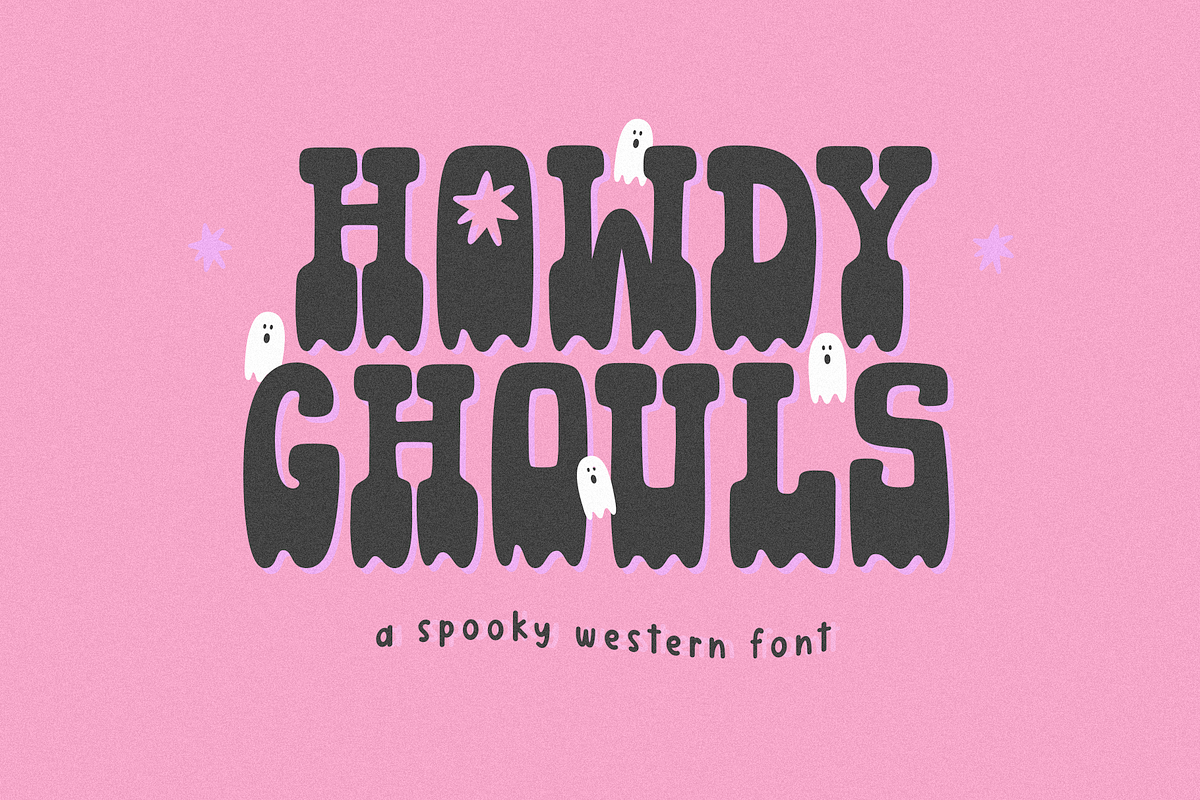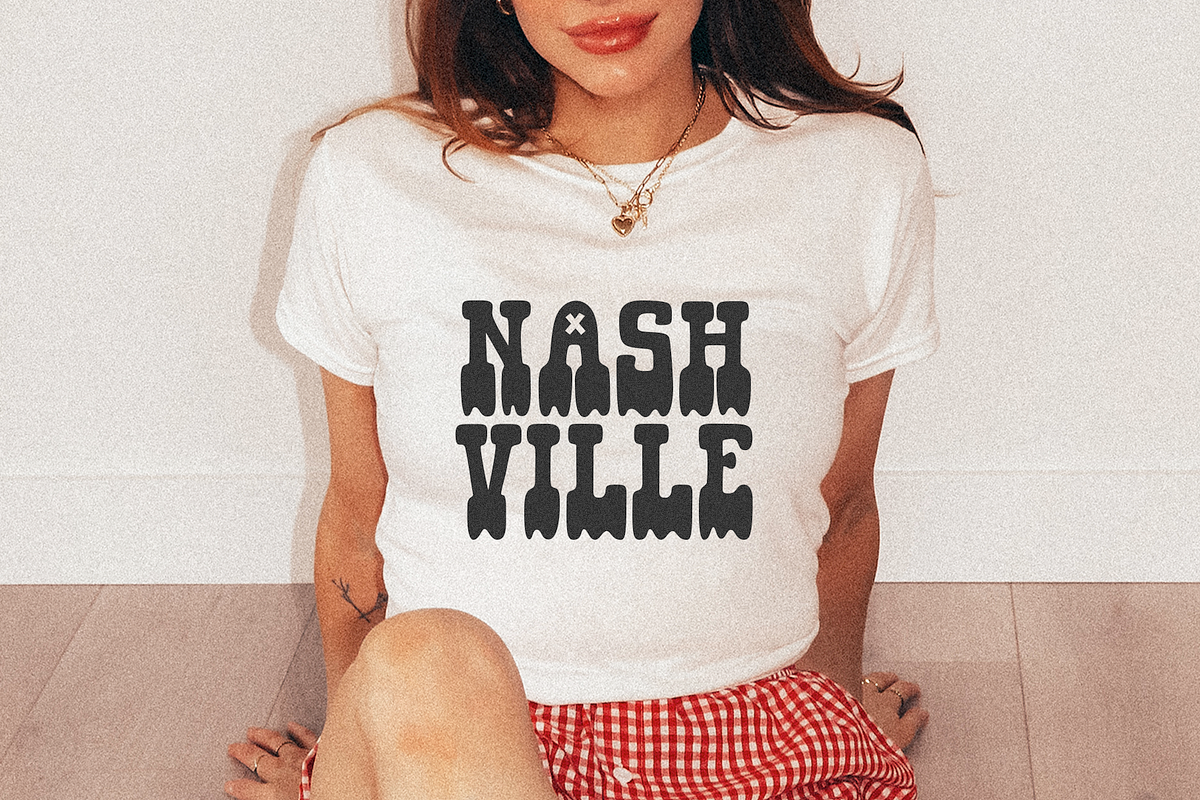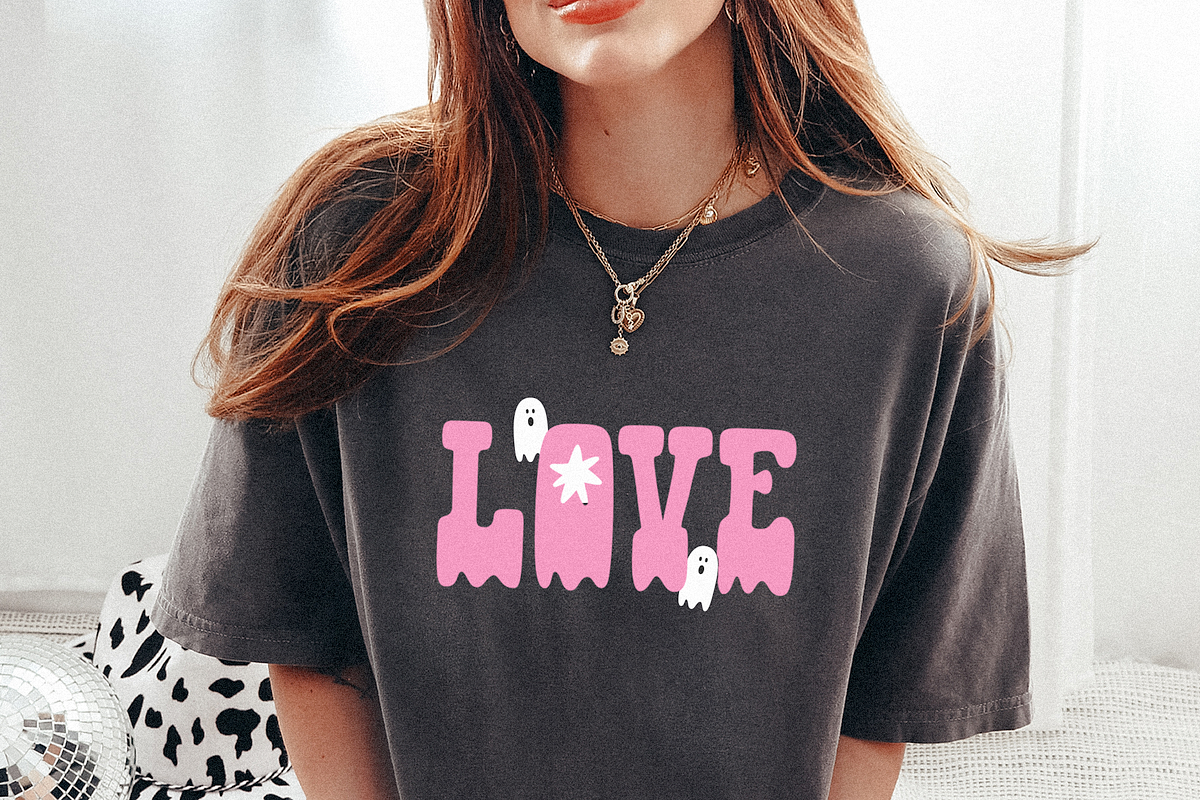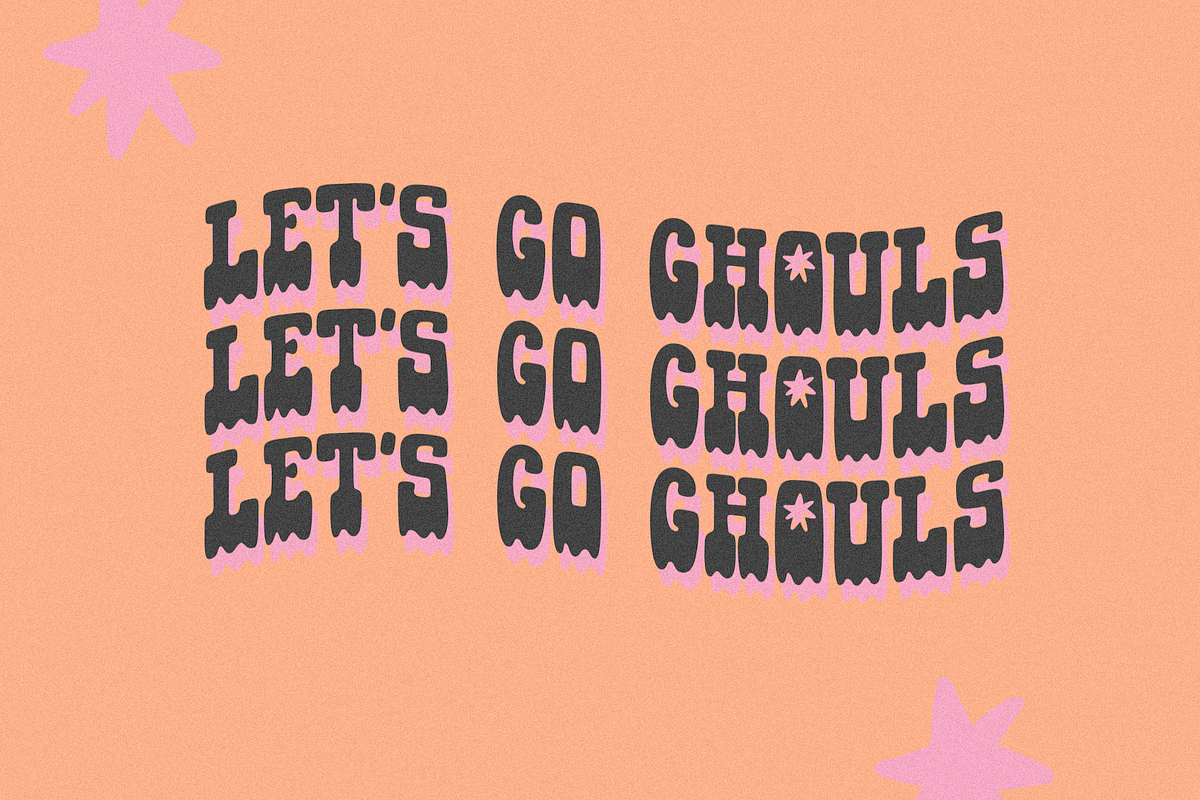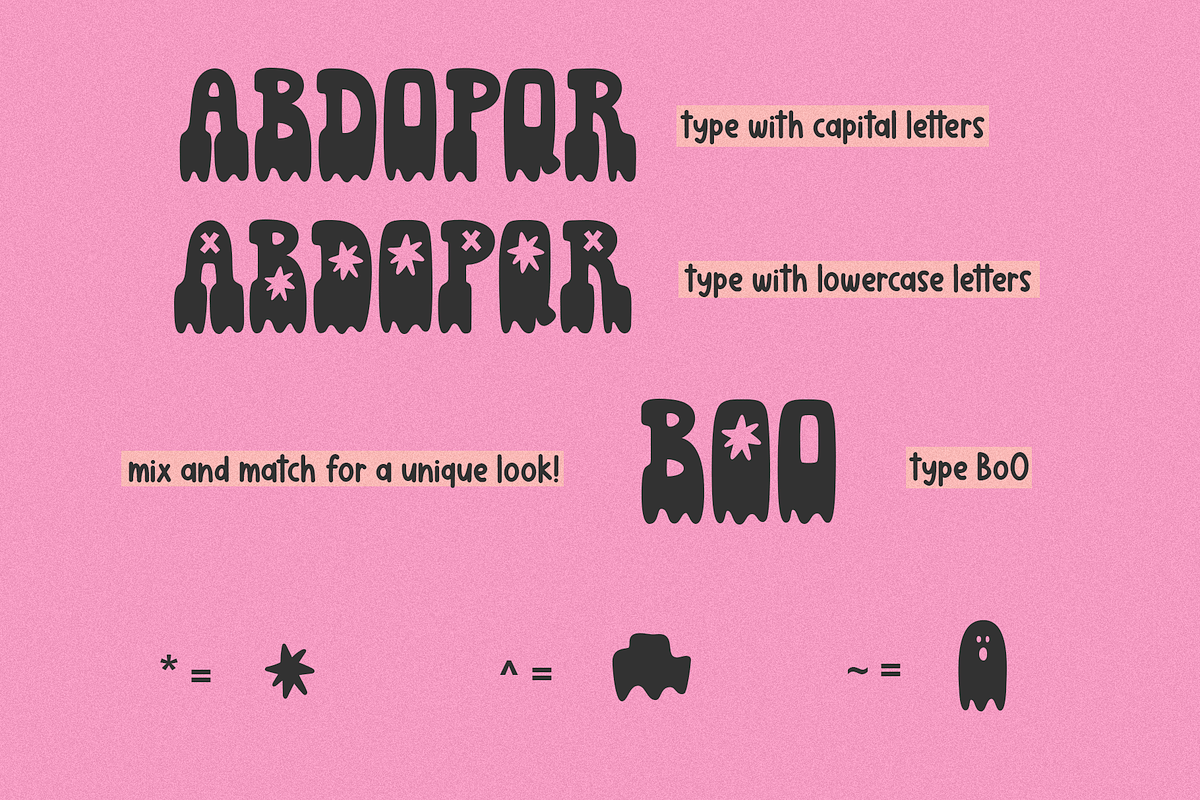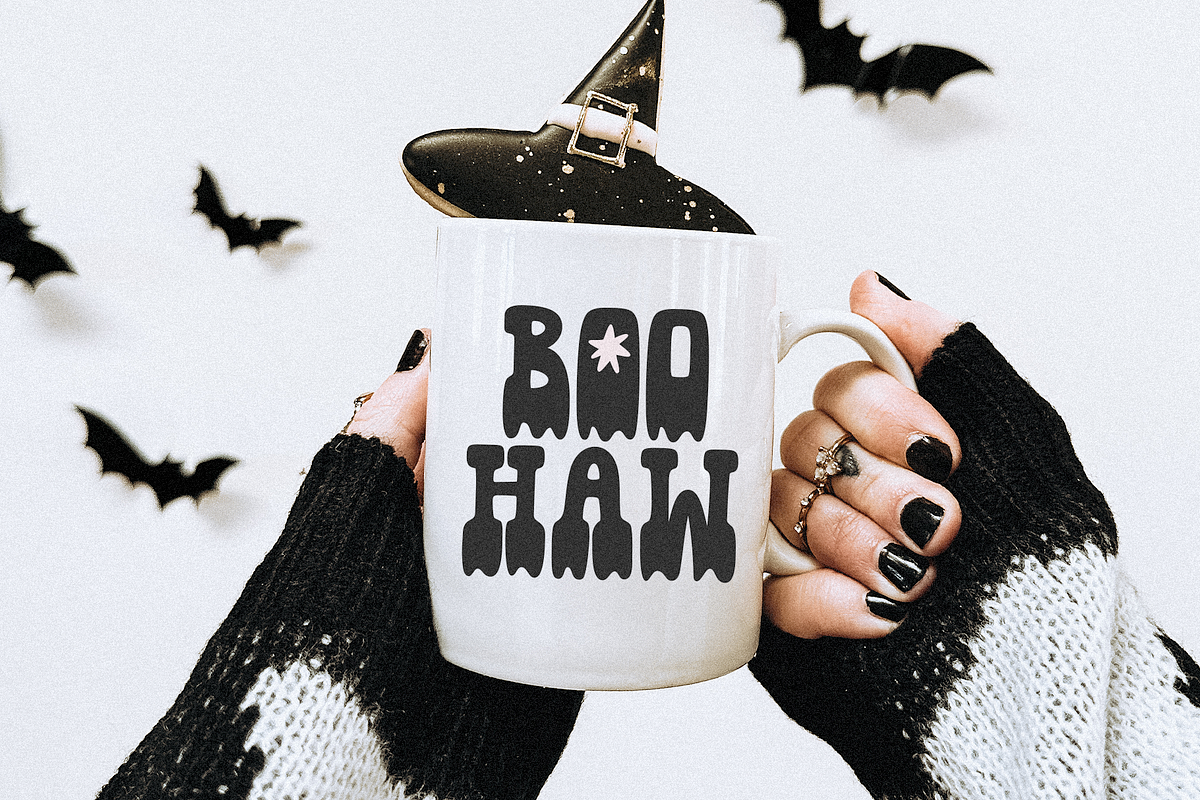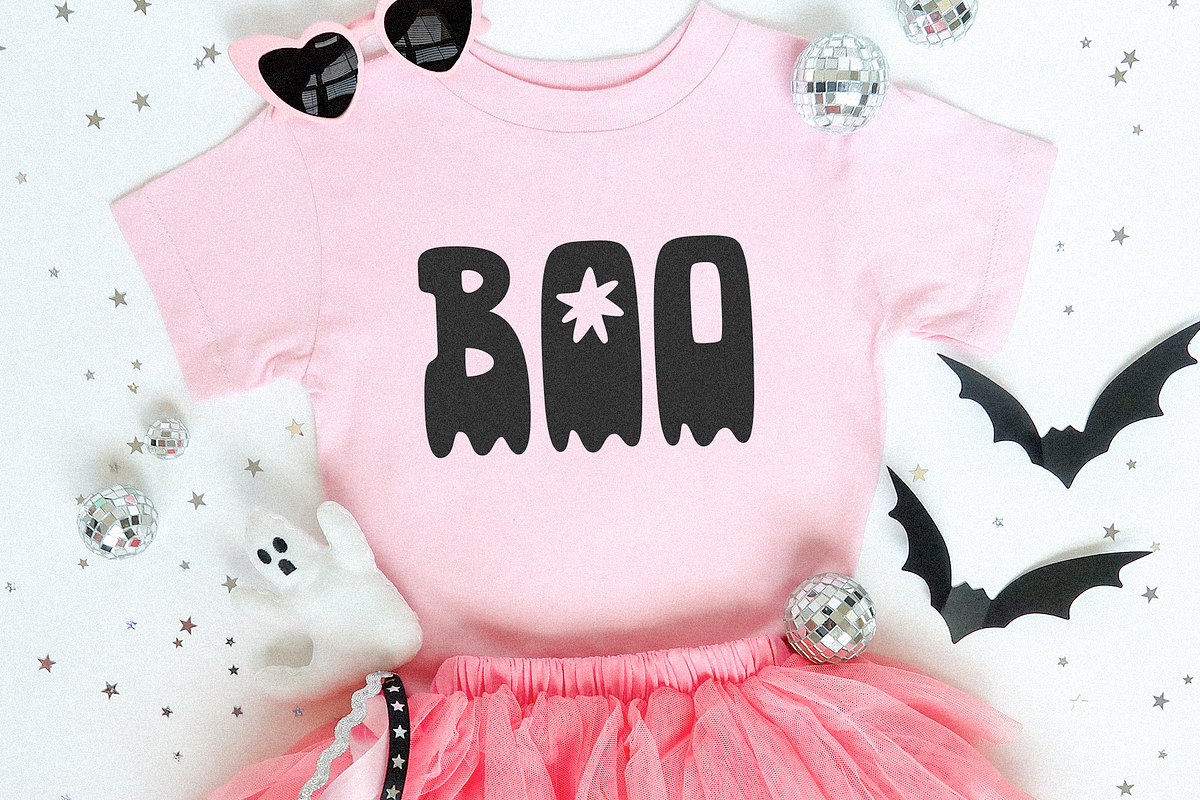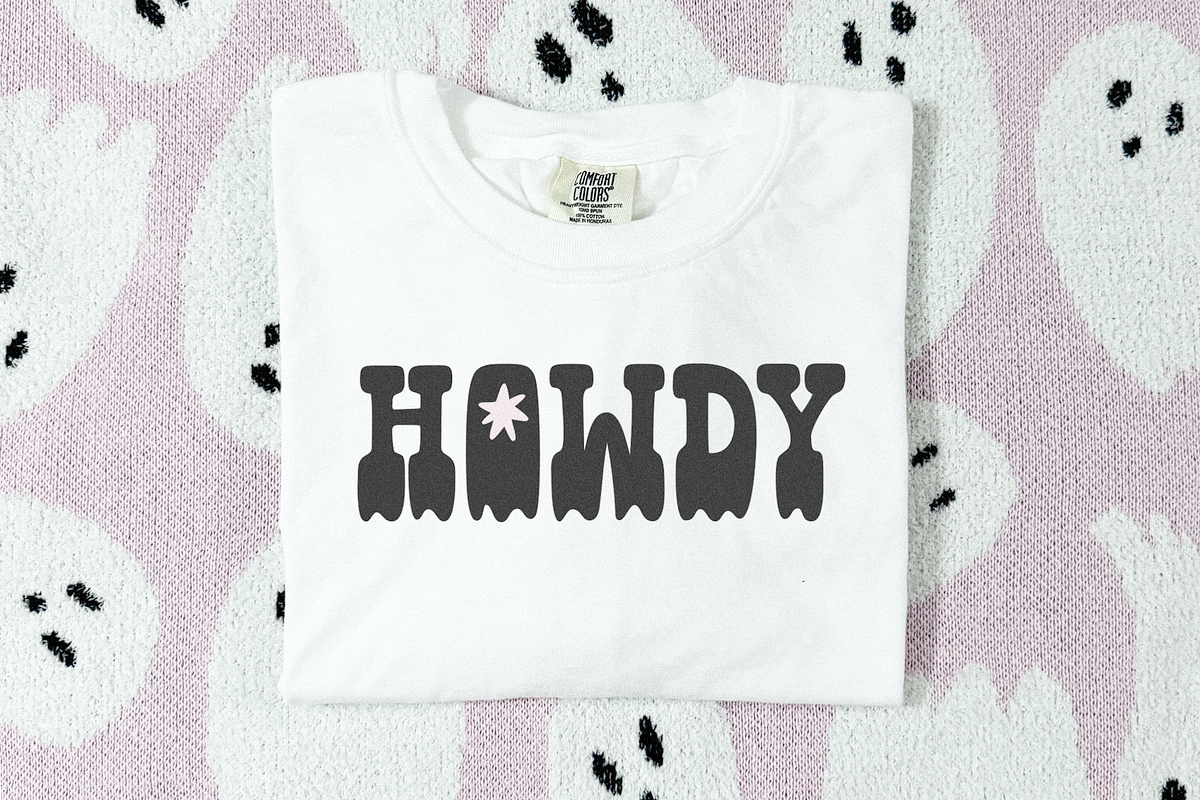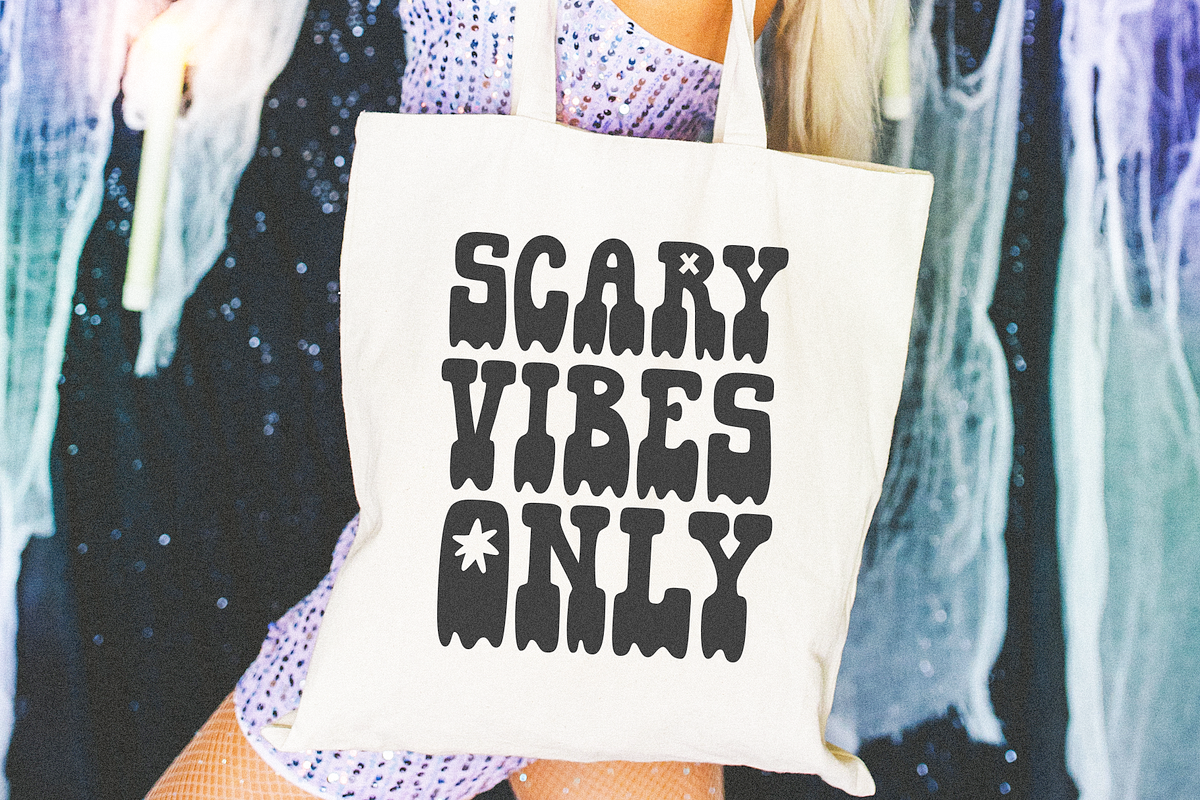
Howdy Ghouls | Halloween Font
Howdy Ghouls is a fun western Halloween font.
This is a spooky version of my Howdy Honey font.
Howdy Ghouls is perfect for cricut crafts, Halloween projects, logos, shirts, svg files, teachers, signs, posters and more!